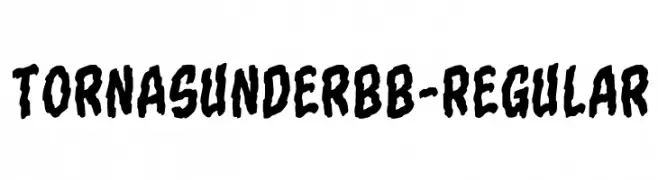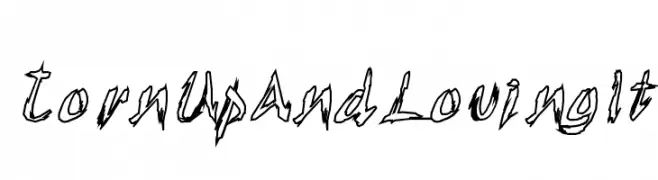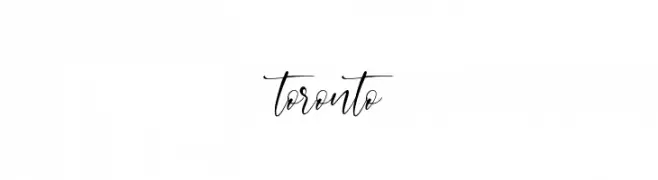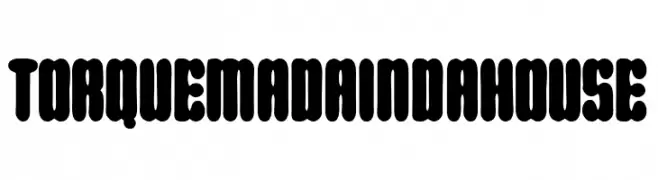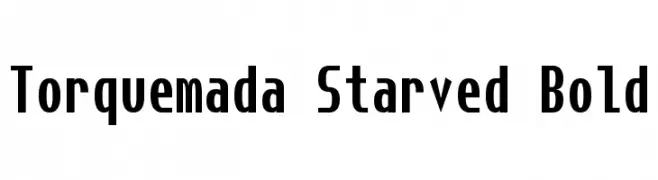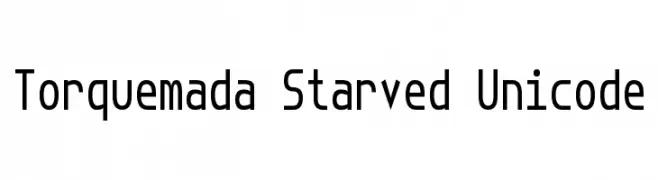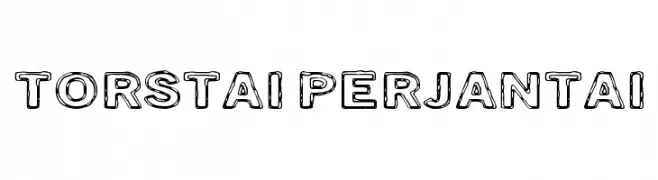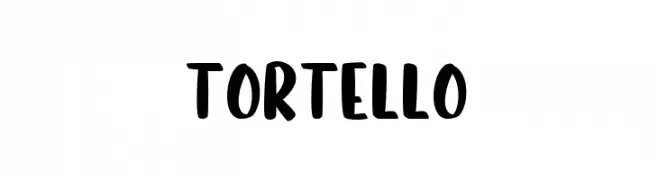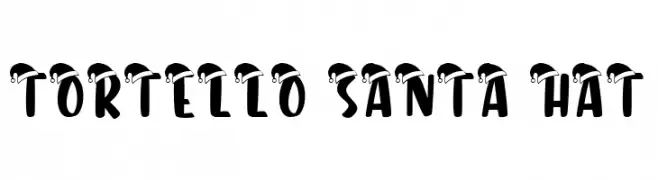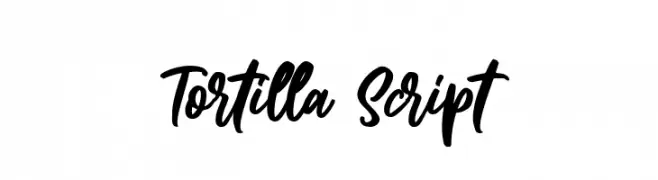
A modern, playful font with angular uppercase and rounded lowercase letters.
A playful, hand-drawn font with a whimsical and festive touch.
A modern, decorative font with playful curls and geometric shapes.
A bold, italicized font with a rugged, torn appearance.
A rugged, distressed font with a bold, torn appearance.
A bold, italicized font with a rugged, distressed appearance.
A bold, distressed font with a hand-drawn, rugged appearance.
A decorative, geometric font with uppercase letters in framed designs.
An elegant, fluid script font with a handwritten touch.
A bold, geometric font with a modern yet retro feel.
A bold, rounded font with a playful and approachable style.
A modern, geometric font with clean lines and a minimalist aesthetic.
A bold, modern font with a condensed, geometric style.
A modern, geometric font with clean lines and a structured, minimalist design.
A clean, modern geometric font with consistent stroke width.
A playful, hand-drawn font with a bold, cartoonish style.
A playful, hand-drawn font with bold outlines and a dotted texture.
A playful, bold outline font with rounded characters and a whimsical style.
A bold, rounded font with a playful and chunky style.
A bold, outlined font with a playful and artistic style.
A playful, bold font with rounded, hand-drawn letterforms.
A playful, bold handwritten font with rounded strokes and a casual feel.
A festive font with each letter topped by a Santa hat, perfect for holiday projects.
A festive, bold font with Santa hats on each letter, perfect for holiday themes.
A bold, lively script font with flowing strokes and playful curves.
A bold, rounded font with a playful, retro vibe.
A bold, rounded font with a playful and chunky style.
A bold, medieval-inspired font with sharp serifs and dynamic strokes.
A rugged, distressed font with a bold, hand-painted style.
A decorative, distressed font with a hand-drawn, chaotic style.
A modern, geometric font with a futuristic and cohesive design.